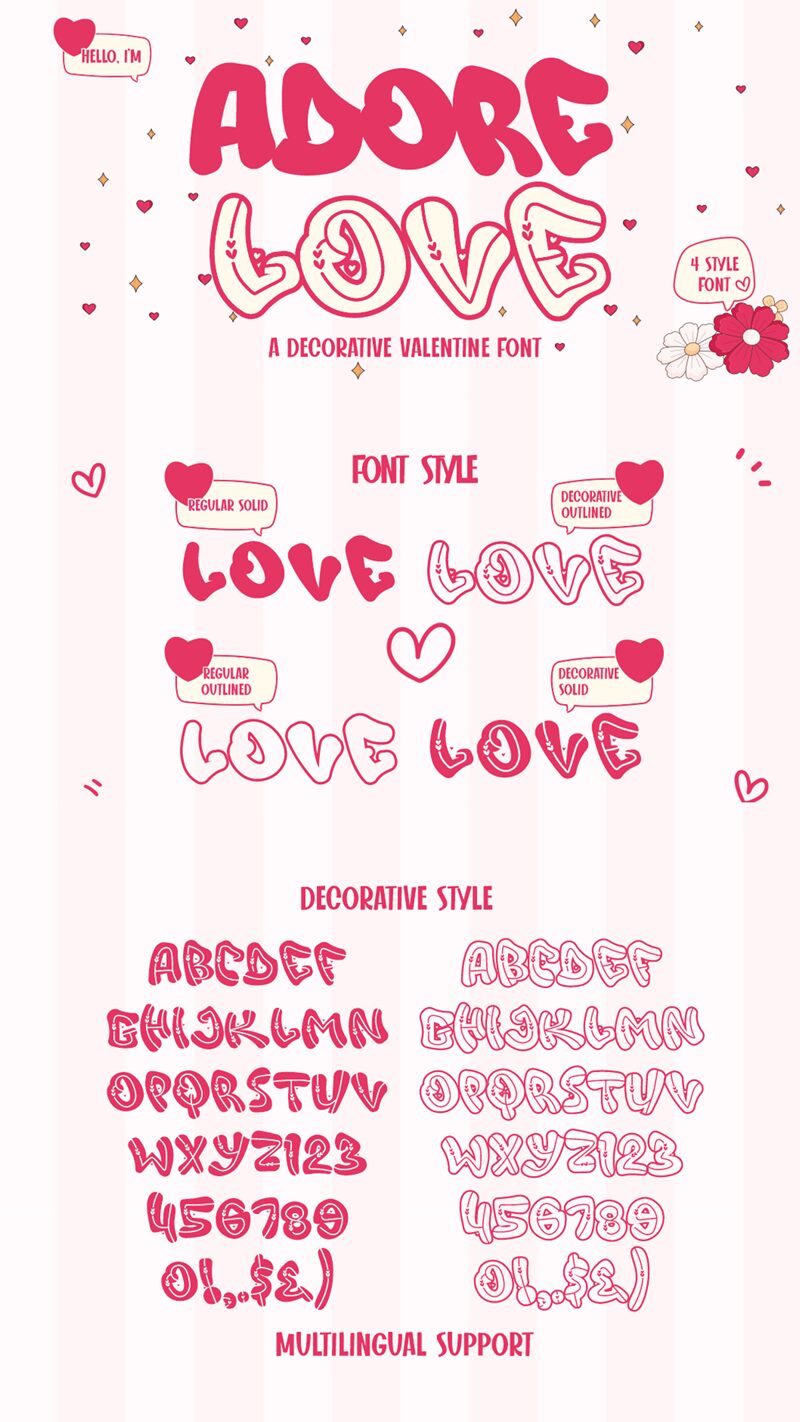
Adore Love font family is a fun holiday-inspired free font creation designed by Cikareotype Studio. The designs are expressive with decorative features and bold characters that romanticize even the simplest text. It is visually artistic with several playful letter designs and each style is quite whimsical in appearance. Each style comes with an inviting and engaging personality to make the lighthearted message behind any text memorable.
It’s a wonderful tool to enhance the romantic energy surrounding love-themed and holiday events. The versatile font styles are applicable to stationery such as letters, cards, and invitations to Valentine’s and couple’s events such as weddings and anniversaries. It is as romantic as it is expressive and can be applied to multiple designs ranging from clothing items, posters, logos, advertisements, and many more modern-day uses.